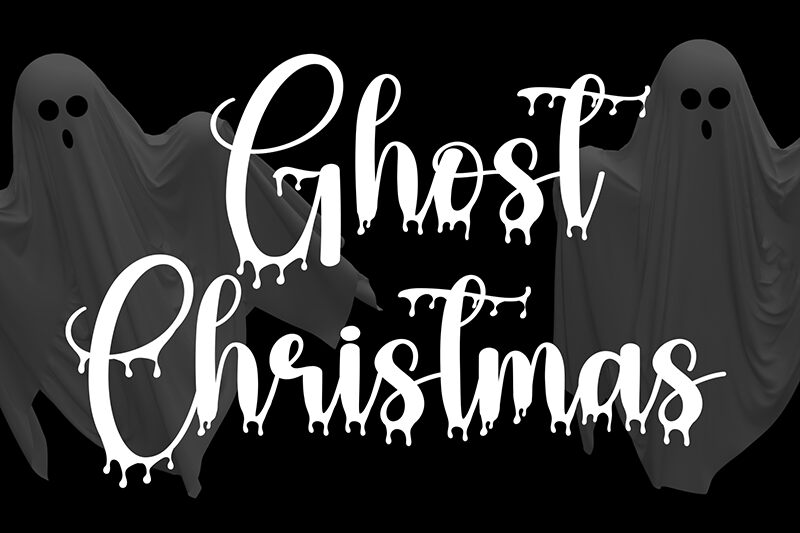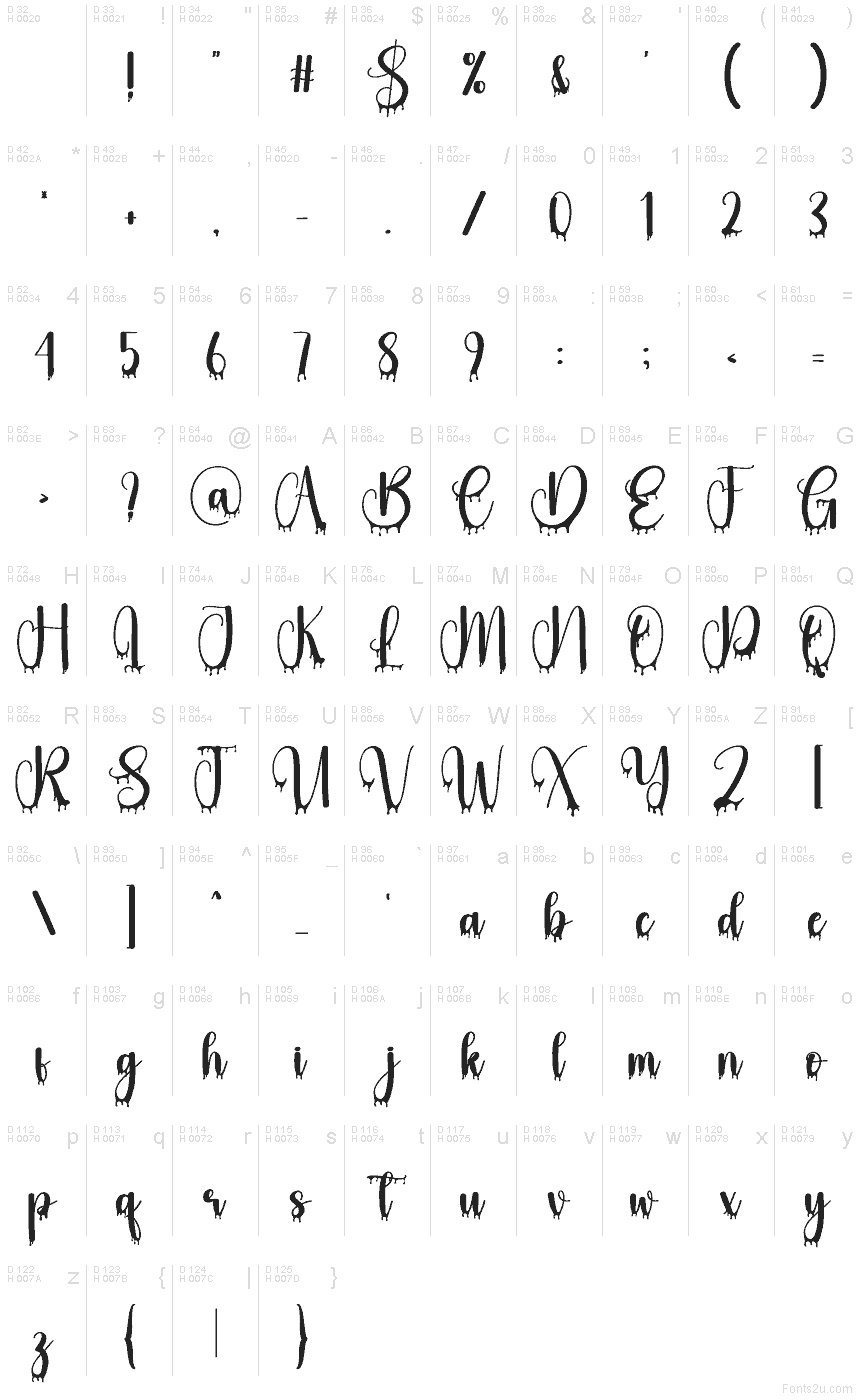
Ghost Christmas
Ghost Christmas font by Scratchones is a free holiday Halloween script display font. Built around a rare mash‑up, it blends a friendly, looping hand-lettered script with inky, dripping tails—like frosting that turned a little spooky. The contrast is playful-not-scary: soft curves, swashy strokes, and gooey droplets that read instantly seasonal with a mischievous twist.
Using Ghost Christmas, you can nail those in-between vibes for party invitations, seasonal posters, window decals, treat bag labels, social posts, YouTube thumbnails, and pop-up event signage. It shines large, where the drips breathe; pair this free font with a clean geometric sans for body copy to keep the message crisp while the headline haunts and sparkles.